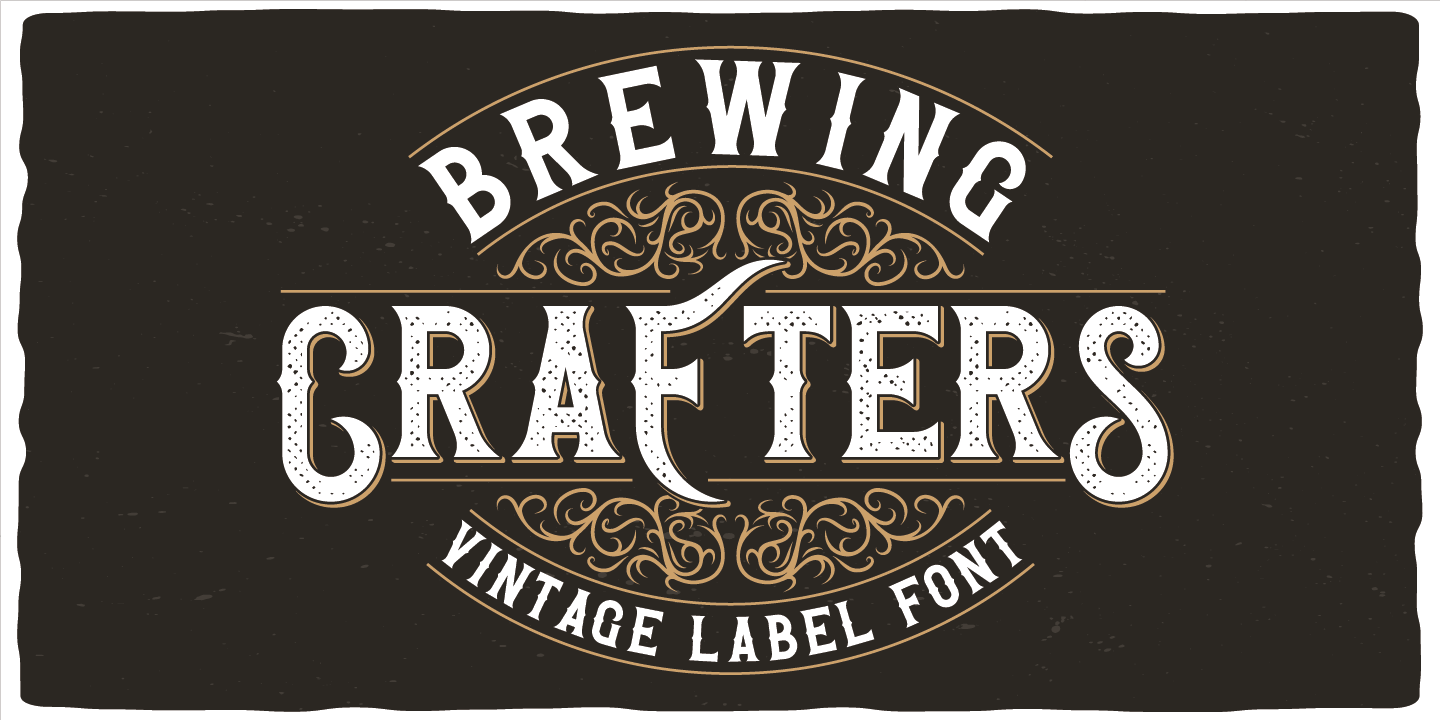
The Brewing Crafters Font is perfect for craft brewery branding, artisanal beer packaging, traditional pub signage, beer festival promotions, homebrew supply companies, craft distillery logos, brewing equipment manufacturers, beer tasting event materials, and authentic brewing industry communications that require robust typography with artisanal craftsmanship appeal and brewing heritage authenticity.
What makes the Brewing Crafters Font so exciting is its exceptional ability to capture the essence of traditional brewing craftsmanship, artisanal dedication, and the passionate pursuit of brewing excellence that defines the craft beer movement and celebrates the time-honored traditions of master brewers. This distinctive typeface embodies the spirit of brewing artistry and craft beverage culture, featuring sturdy letterforms with hand-crafted character details and traditional proportions that create an immediate sense of authenticity, quality, and the kind of artisanal pride that distinguishes craft brewing from mass production. The font's brewing heritage and craftsman appeal make it the perfect choice for breweries and brewing-related businesses that honor traditional methods, celebrate brewing artistry, and communicate the values of quality ingredients, careful process, and passionate dedication to brewing excellence.
The Brewing Crafters Font family typically includes regular, bold, and condensed weights, along with craft-inspired alternates and brewing-themed design elements that provide craft beverage brands with comprehensive tools for creating authentic brewing branding systems and artisanal visual communications across various craft brewing applications.
Craft breweries and artisanal beverage producers consistently choose Brewing Crafters Font Free Download for its unmatched ability to convey brewing authenticity and craft beverage credibility. This robust typeface represents the perfect fusion of brewing tradition and contemporary craft culture, offering brewing professionals a powerful tool for building meaningful connections with beer enthusiasts who appreciate craft quality, traditional methods, and the passionate artistry that defines exceptional brewing. Whether you're developing branding for microbreweries, creating packaging for craft beer products, designing brewing festival materials, or crafting artisanal beverage marketing campaigns, this font delivers the craft authenticity and brewing heritage that craft beverage communications require.
The expertly crafted letterforms of the Brewing Crafters Font showcase traditional brewing proportions and artisanal styling details that ensure maximum craft impact while maintaining excellent readability across various brewing applications. The font's robust character and craft appeal create immediate associations with quality brewing, artisanal dedication, and the fundamental values that drive craft beverage excellence and brewing tradition preservation.
Craft beverage designers and brewing marketers appreciate the font's comprehensive authenticity and craft-focused design principles, which enable the creation of typography that genuinely represents brewing culture without compromising traditional accuracy or craft credibility.
For brewing businesses seeking to establish authentic connections with craft beer communities and communicate genuine respect for brewing traditions through their visual identity, the Brewing Crafters Font provides an indispensable typography solution. Its craft foundation and proven brewing appeal make it particularly suitable for craft breweries, brewing supply companies, beer festivals, and artisanal beverage producers that value traditional brewing methods and craft excellence.
The font's optimization for both traditional brewing print materials and modern craft beverage marketing platforms ensures consistent craft impact across all brewing communication channels, while its timeless artisanal aesthetic provides enduring value for craft-focused brewing brand systems requiring typography that authentically represents the continuing importance of brewing craftsmanship and artisanal beverage culture in today's craft-conscious consumer marketplace.